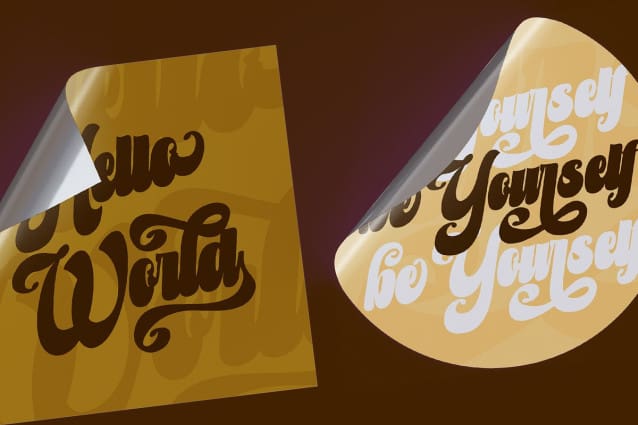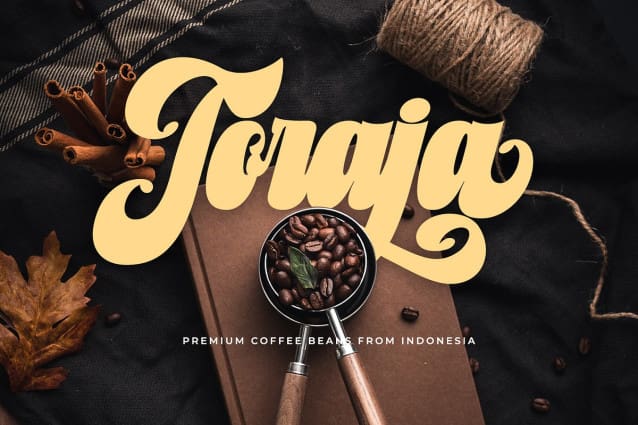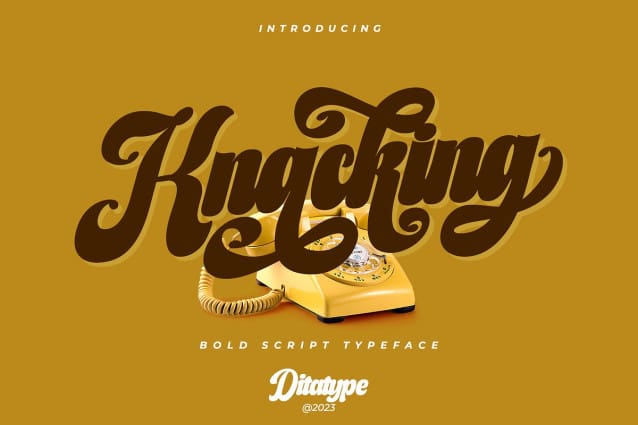
Knacking Font
Knacking Font, a captivating script font that seamlessly merges boldness with elegance. Knacking Font boasts a distinct connected letterform design that effortlessly links each character, resulting in a fluid and harmonious appearance. With its low-contrast style, this font offers a sense of stability and legibility, making it a versatile choice for a myriad of design projects. What sets Knacking apart is its striking swinging endings on select letters, infusing a touch of whimsical sophistication into your text. These unique flourishes add a dynamic quality to your words, allowing your message to capture attention with a dash of charm.